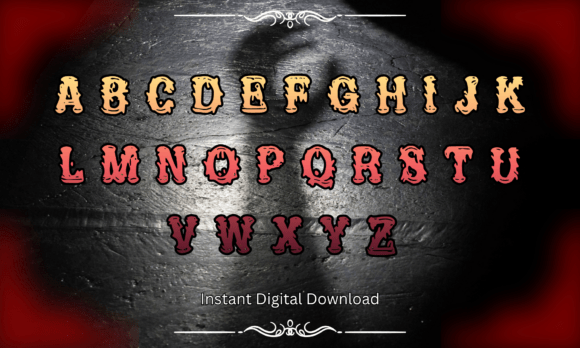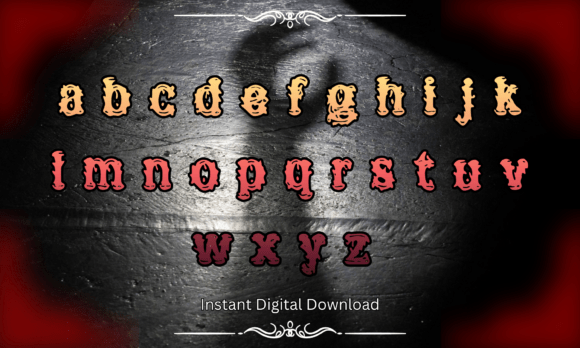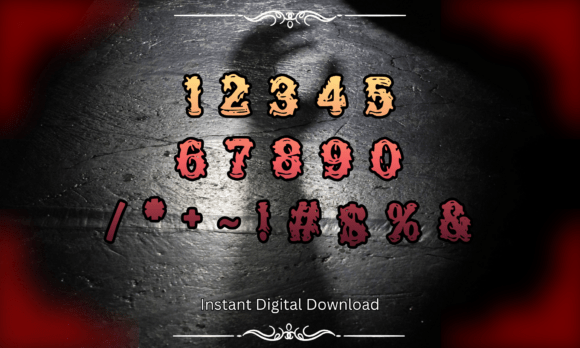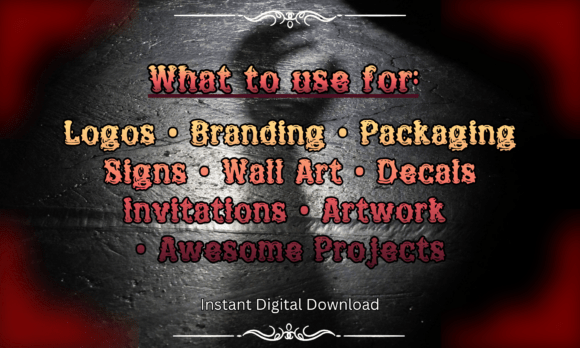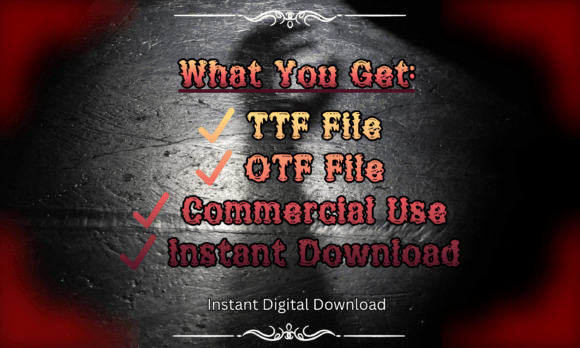
Shadow Demon Font – Free Download
Introduction to Shadow Demon Font
Step into the darkness with Shadow Demon Font ๐Ÿ‘๏ธ๐Ÿฉธ This eerie horror-inspired font features rough dripping edges, distressed textures, and a sinister gothic aesthetic perfect for spooky projects and creepy creative designs.
Inspired by haunted shadows, horror movies, paranormal themes, and Halloween vibes, Shadow Demon brings a chilling atmosphere to every design it touches Whether youโ€™re creating horror merchandise, scary party invitations, gothic branding, creepy posters, YouTube thumbnails, or Halloween decorations, this font delivers the perfect terrifying aesthetic.
Key Features of Shadow Demon Font
Why Choose Shadow Demon Font?